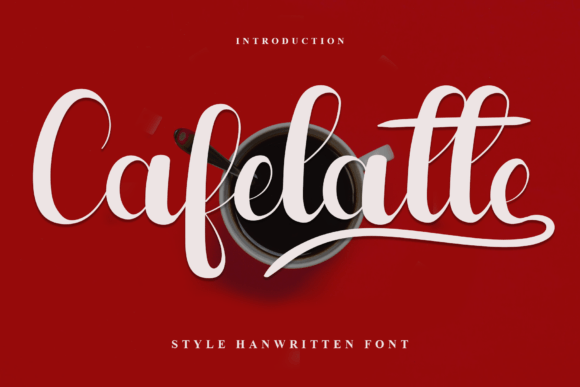
Journey into the world of charm, elegance, and rustic beauty with Cafelatte, the mesmerizing script font family that adds a touch of farmhouse flair to your creative endeavors. Unleash your inner artist as you embark on a delightful adventure with Cafelatte, meticulously crafted by K_IN Studio to bring your heartfelt projects to life.
With its innate ability to evoke a sense of nostalgia and warmth, Cafelatte effortlessly captures the essence of countryside living, making it an ideal choice for crafting captivating designs that resonate with rustic charm. Adorn your farmhouse signs with Cafelatte's graceful strokes, and watch as your words transform into exquisite artwork.
Cafelatte's exquisitely distinct style ensures that your creations stand out from the ordinary, leaving an indelible mark on the hearts of your audience. Its timeless elegance transcends fleeting trends, ensuring that your designs remain relevant and cherished for years to come.
Cafelatte's versatility knows no bounds, lending its beauty to a myriad of creative pursuits. From heartfelt letters and heartfelt greeting cards to enchanting invitations and breathtaking blog posts, Cafelatte seamlessly adapts to your unique vision, adding a touch of rustic sophistication to every project.
Dive into the world of Cafelatte and discover a hidden realm of creativity and inspiration just waiting to be explored. Its user-friendly nature makes it accessible to both seasoned designers and those just starting their artistic journey, ensuring that everyone can harness its captivating charm.
Embrace the allure of Cafelatte today and embark on a creative odyssey that will leave you spellbound. Let your imagination soar as you create designs that captivate and inspire, leaving a lasting impression wherever they're seen.